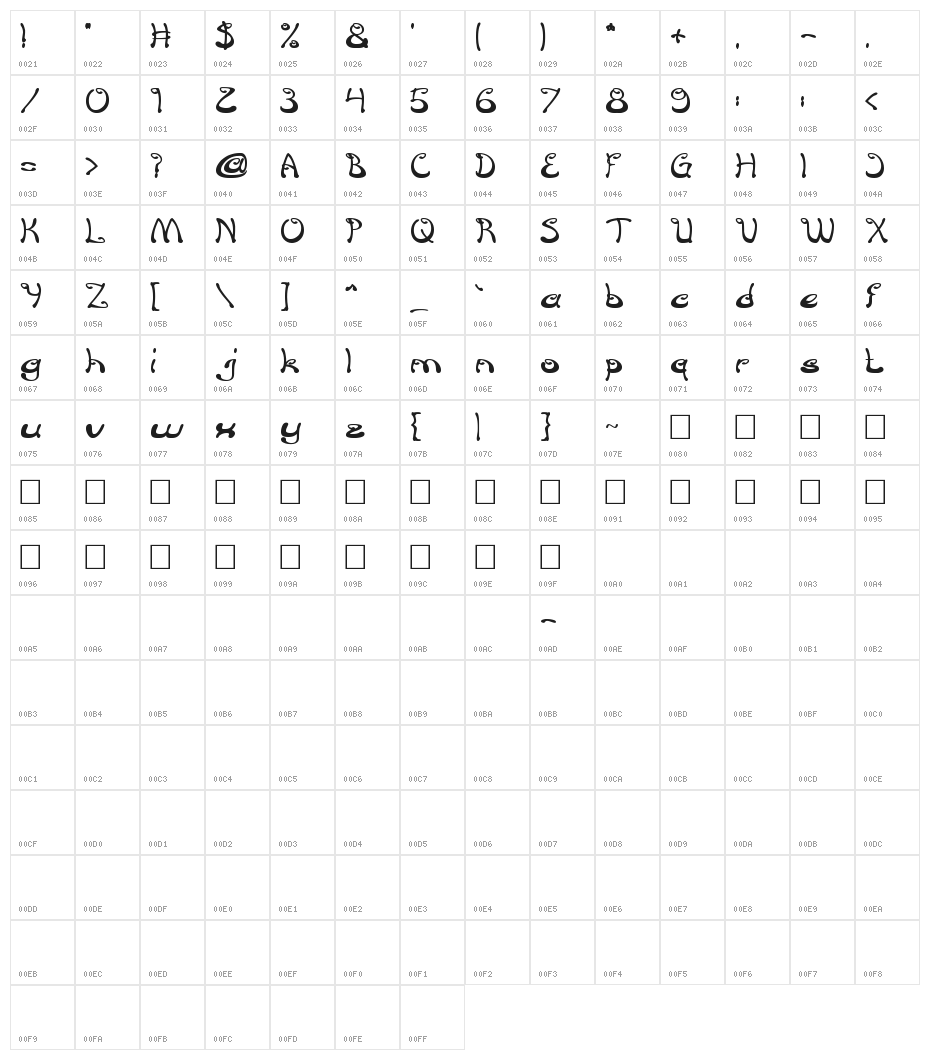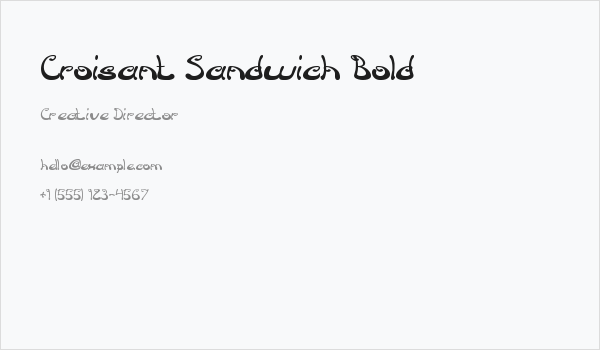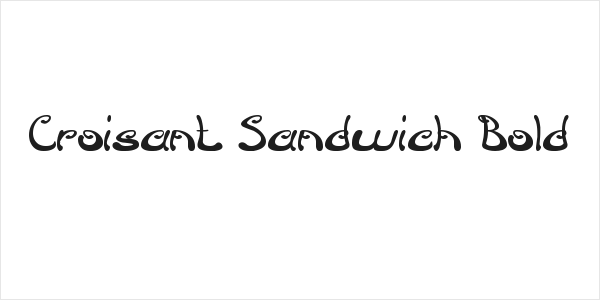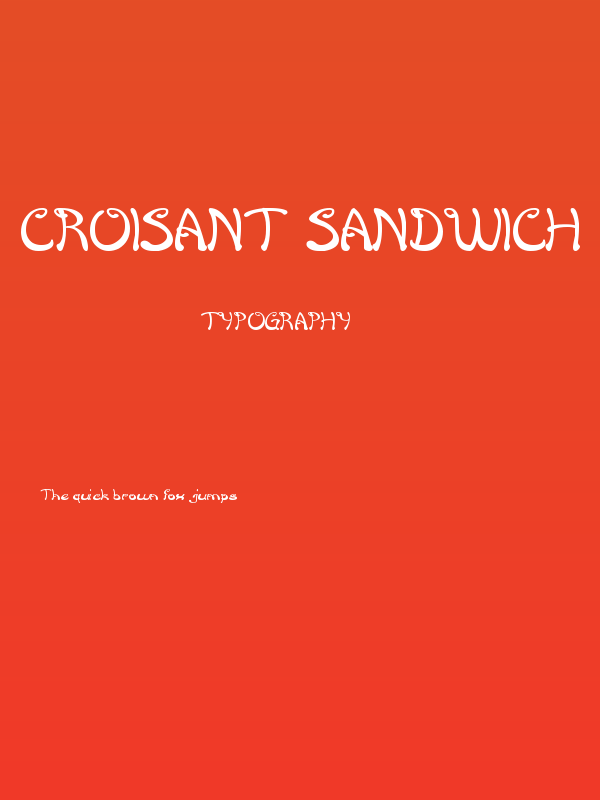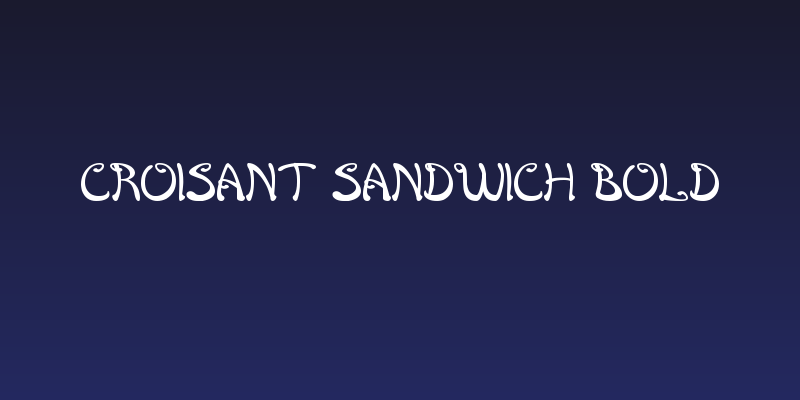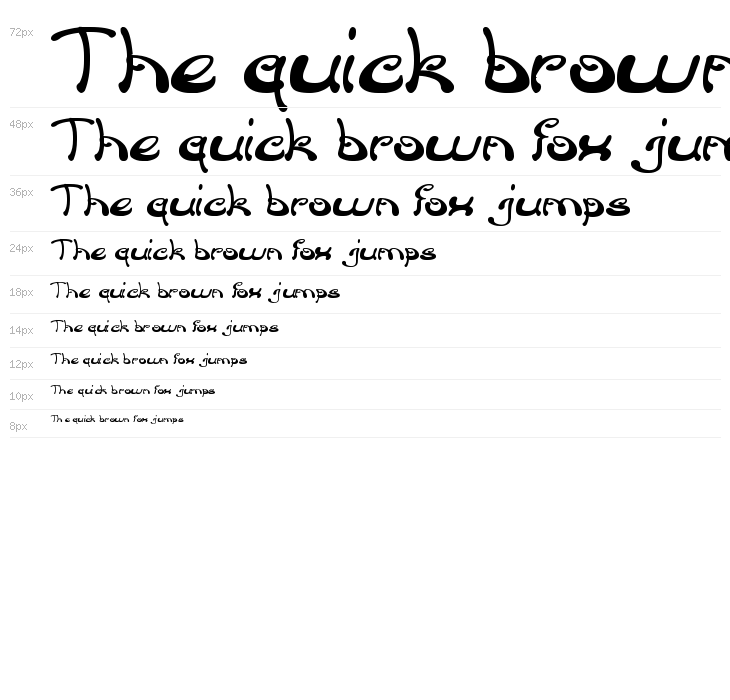
Croisant Sandwich Bold Font
Croisant Sandwich Bold Description
This font features a playful and whimsical design with a bold and rounded appearance. The characters have a unique, hand-drawn quality, with exaggerated curves and loops that give it a lively and dynamic feel. The uppercase and lowercase letters maintain a consistent style, while the numbers and special characters complement the overall aesthetic. The font's boldness and distinctive style make it stand out, suitable for creative and informal projects.
| Proposed Projects | Ideal for children's books, playful branding, posters, and creative invitations. |